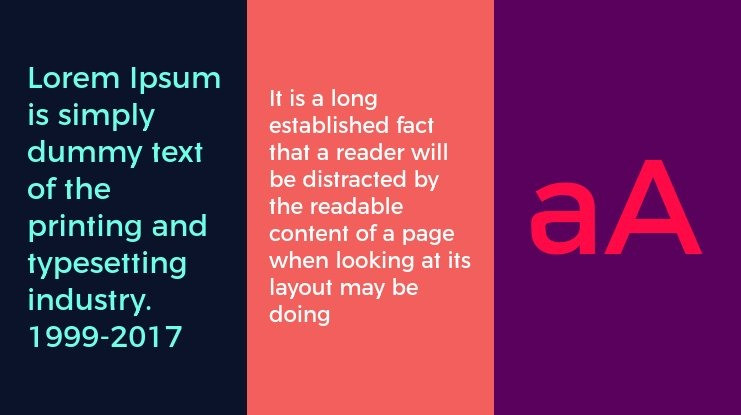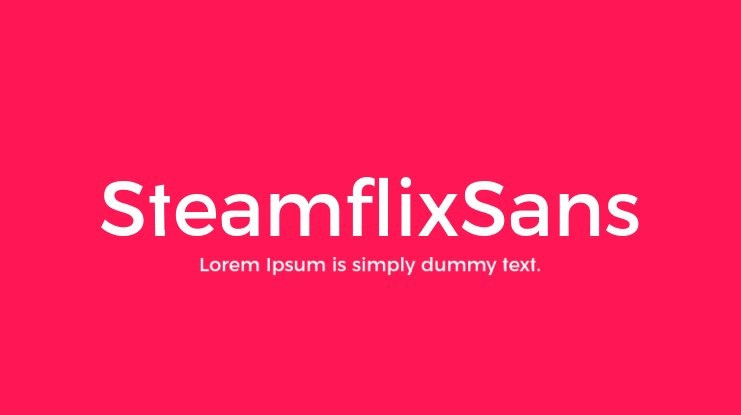
SteamflixSans Font, This bundle features strong, confident and powerful typefaces designed to work great with sports logos, club branding, apparel applications, labels and more.
| Designer Name: | Julieta Ulanovsky |
| Classification: | Sans Serif Fonts, Style / Aesthetic Fonts |